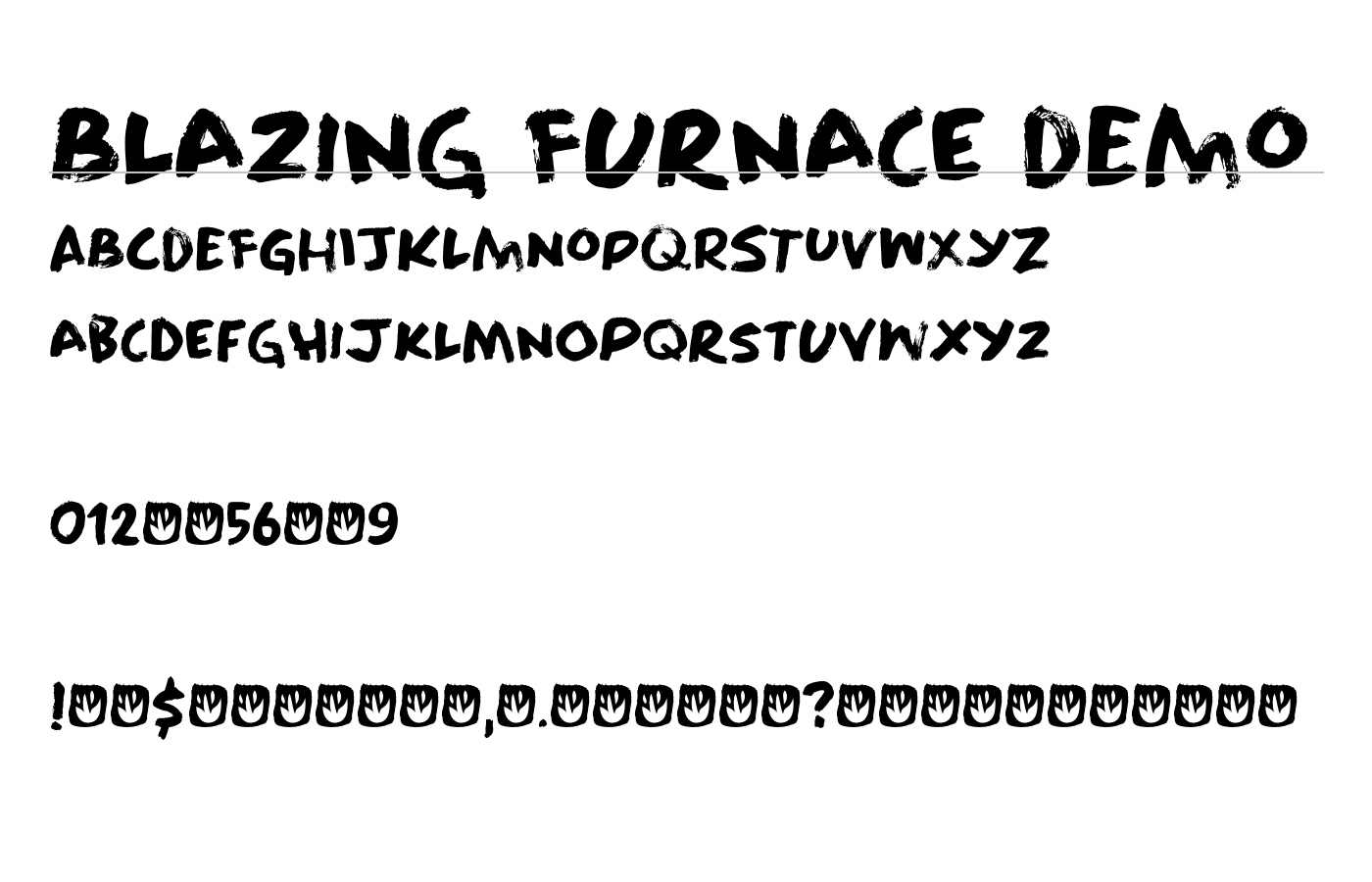
Blazing Furnace DEMO is a bold, expressive brush-style sans serif font with a rough, hand-painted texture that gives it a raw and energetic feel. Its uneven strokes and informal character make it perfect for creative, edgy designs like posters, logos, or branding that aim to convey passion and intensity. This font works well in headlines or display use where its lively personality can truly stand out.
Blazing Furnace DEMO Font
About Blazing Furnace DEMO Font
| Font family | Blazing Furnace DEMO Font |